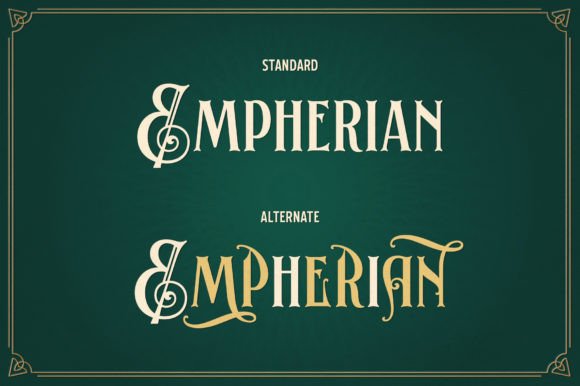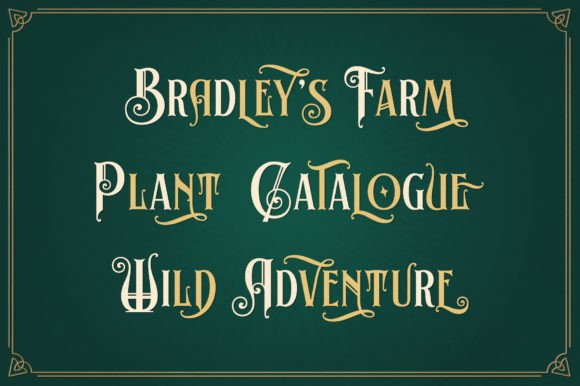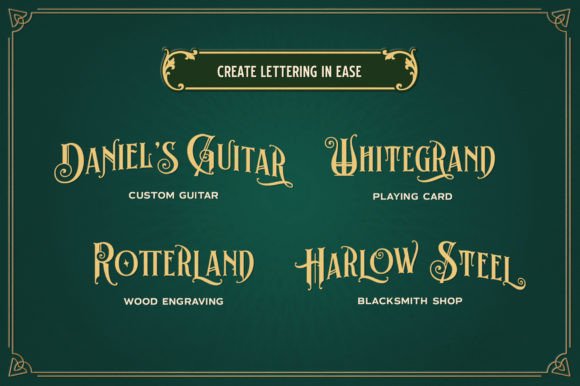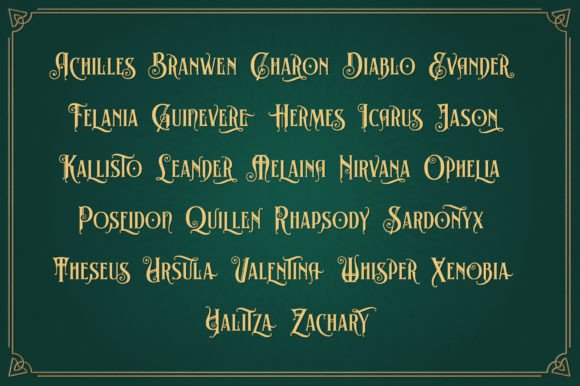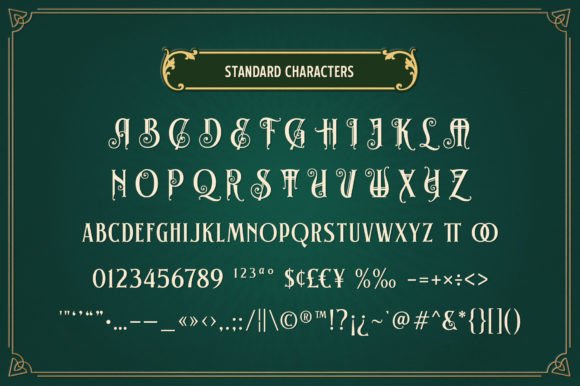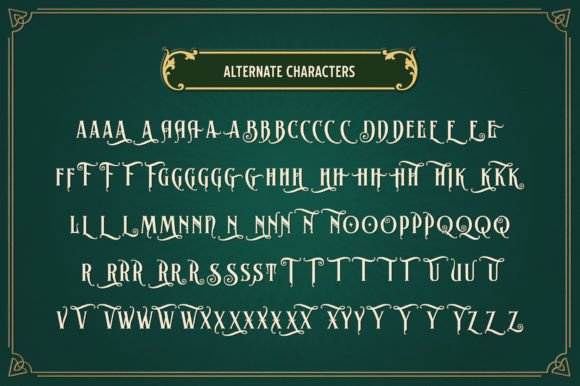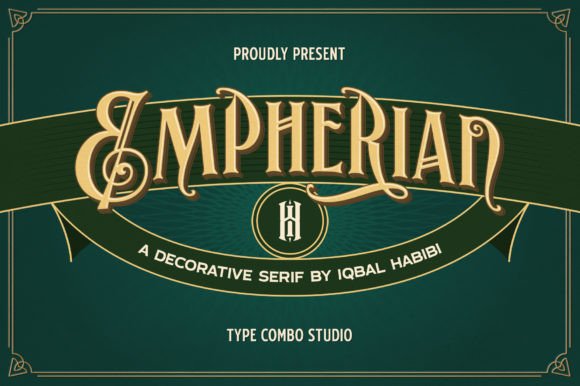
Introducing Empherian Font: A Vintage-Inspired Masterpiece
Are you a designer or crafter looking for a unique and beautiful font to elevate your creative projects? Look no further than Empherian Font, a stunning typeface inspired by vintage catalog cards and book covers. With its swirling curves and old-fashioned charm, Empherian is the perfect addition to any design or crafting project.
The Inspiration Behind Empherian
Empherian Font draws inspiration from the classic typography found on vintage catalog cards and book covers. The font’s creator sought to capture the essence of these retro designs, infusing Empherian with a sense of nostalgia and timelessness. The result is a font that exudes a sense of history and sophistication, perfect for designers and crafters looking to add a touch of elegance to their work.
Unique Features of Empherian Font
So, what sets Empherian Font apart from other typefaces? Here are just a few of its unique features:
- Swirling curves: Empherian’s swirling curves give the font its distinctive, old-fashioned style. These curves add a touch of whimsy and beauty to any design or project.
- PUA encoding: Empherian is PUA (Private Use Area) encoded, making it easy to access all of the font’s amazing glyphs and ligatures. This means you can easily incorporate the font’s unique features into your designs.
- Vintage charm: Empherian’s vintage inspiration gives the font a unique charm that’s hard to find in modern typefaces. This makes it perfect for designers and crafters looking to add a touch of nostalgia to their work.
Use Cases for Empherian Font
Empherian Font is incredibly versatile, making it suitable for a wide range of design and crafting projects. Here are just a few ideas to get you started:
- Lettering logos: Empherian’s unique swirling curves make it perfect for creating beautiful lettering logos that stand out from the crowd.
- Vintage logos: With its vintage inspiration, Empherian is a natural fit for creating retro-style logos that evoke a sense of nostalgia.
- Signages: Empherian’s bold, eye-catching design makes it perfect for use in signages, whether you’re creating a vintage-style store sign or a modern display.
- Movie titles: Empherian’s cinematic feel makes it a great choice for movie titles, adding a touch of glamour and sophistication to any film.
- Branding projects: Whether you’re creating a new brand identity or refreshing an existing one, Empherian Font is a great choice. Its unique design and vintage charm make it perfect for adding a touch of personality to your brand.
Tips for Using Empherian Font
To get the most out of Empherian Font, here are a few tips to keep in mind:
- Experiment with sizes: Empherian Font looks great in a variety of sizes, from large display fonts to smaller body text. Experiment with different sizes to find the one that works best for your project.
- Play with colors: Empherian’s vintage inspiration makes it a great fit for a range of colors, from bold brights to muted pastels. Experiment with different color schemes to find the one that works best for your design.
- Mix and match: Empherian Font pairs well with a range of other typefaces. Try mixing and matching it with other fonts to create a unique and eye-catching design.
Empherian Font is a unique and beautiful typeface that’s perfect for designers and crafters looking to add a touch of vintage charm to their work. With its swirling curves, PUA encoding, and vintage inspiration, Empherian is a versatile font that’s suitable for a wide range of design and crafting projects. Whether you’re creating a lettering logo, vintage logo, signage, movie title, or branding project, Empherian Font is a great choice. So why not give it a try and see what amazing designs you can create?